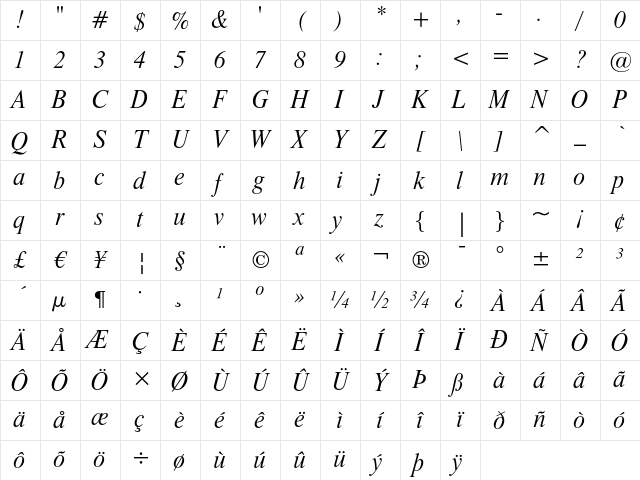
Dutch 801 Italic Headline
Style: Italic Headline
Dutch 801 Family
Dutch 801 Italic Headline
Complete Dutch 801 Italic Headline glyph index. Displaying only characters natively supported by Dutch 801 Italic Headline font.
Design Context for Dutch 801
Dutch 801 is a composed and adaptable typeface that performs quietly and consistently across a wide range of design contexts. The slanted form adds forward momentum and visual energy.